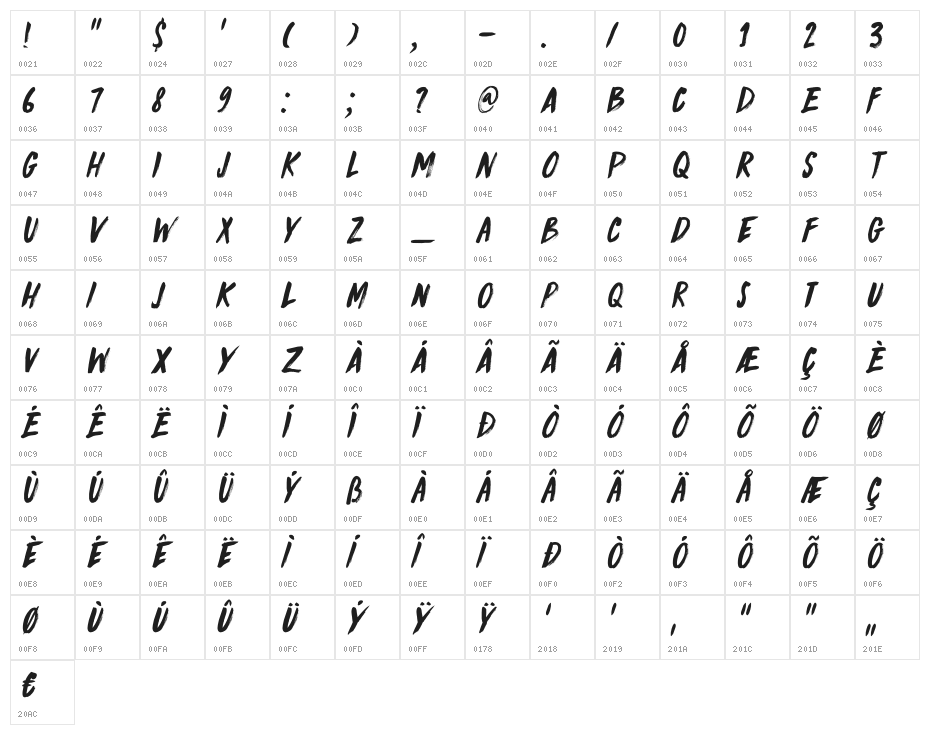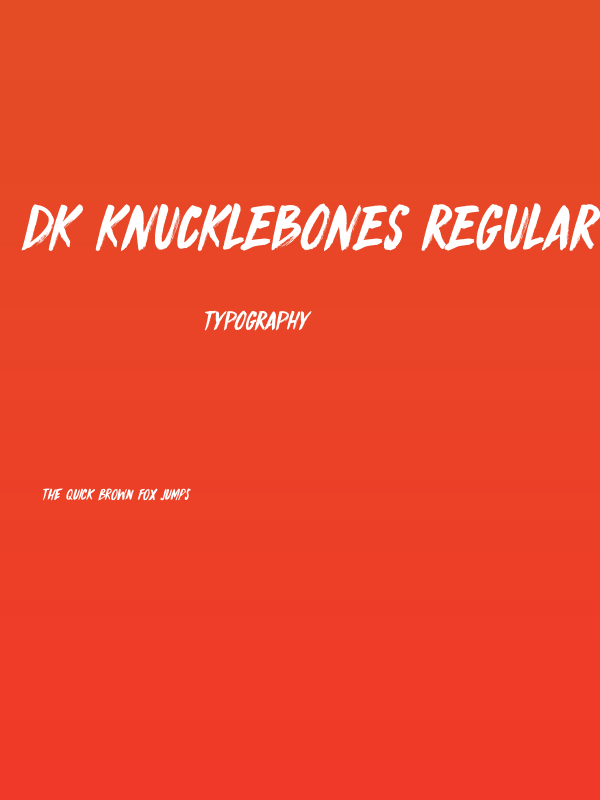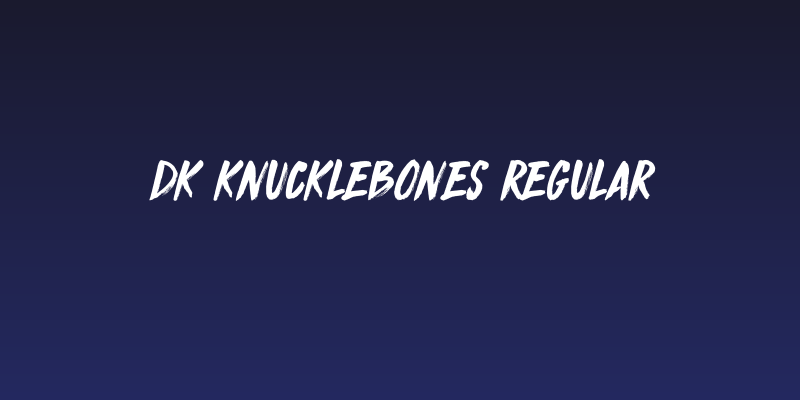
DK Knucklebones Regular Font
DK Knucklebones Regular Description
This font features a bold, brush-stroke style that exudes energy and dynamism. The characters are crafted with a rough, textured appearance, giving them a hand-painted look. The uppercase and lowercase letters maintain a consistent style, with exaggerated strokes and varying thickness that add to the font's expressive nature. The numbers and special characters follow the same design ethos, ensuring a cohesive appearance across all glyphs. This font is ideal for projects that require a strong visual impact and a sense of movement.
| Overall Style | Modern, Artistic |
| Proposed Projects | Perfect for posters, album covers, branding, and any design needing a bold, artistic touch. |